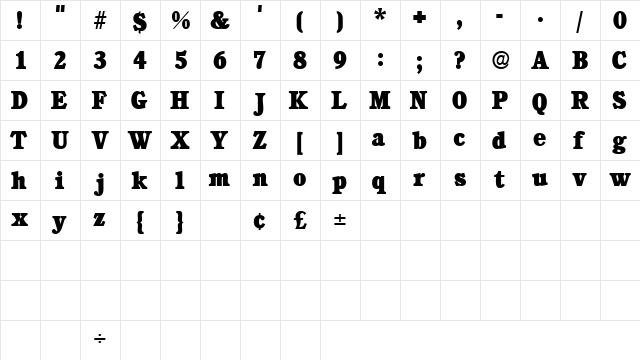
ChoreaDisplaySSK Bold
Design Context for ChoreaDisplaySSK Typeface
ChoreaDisplaySSK brings ornamental detail and strong personality to headlines and identities, where visual impact matters more than quiet functionality. Its bold stroke weight gives it real presence on the page.
Font Pairing: Pair with a clean neutral sans-serif for body copy to let ChoreaDisplaySSK's character lead without overwhelming the composition.
Pro Tip: Use ChoreaDisplaySSK exclusively at display sizes — it was designed to be seen, not read at length. Let a neutral companion handle body copy.